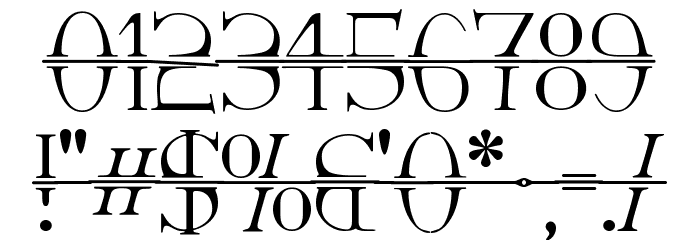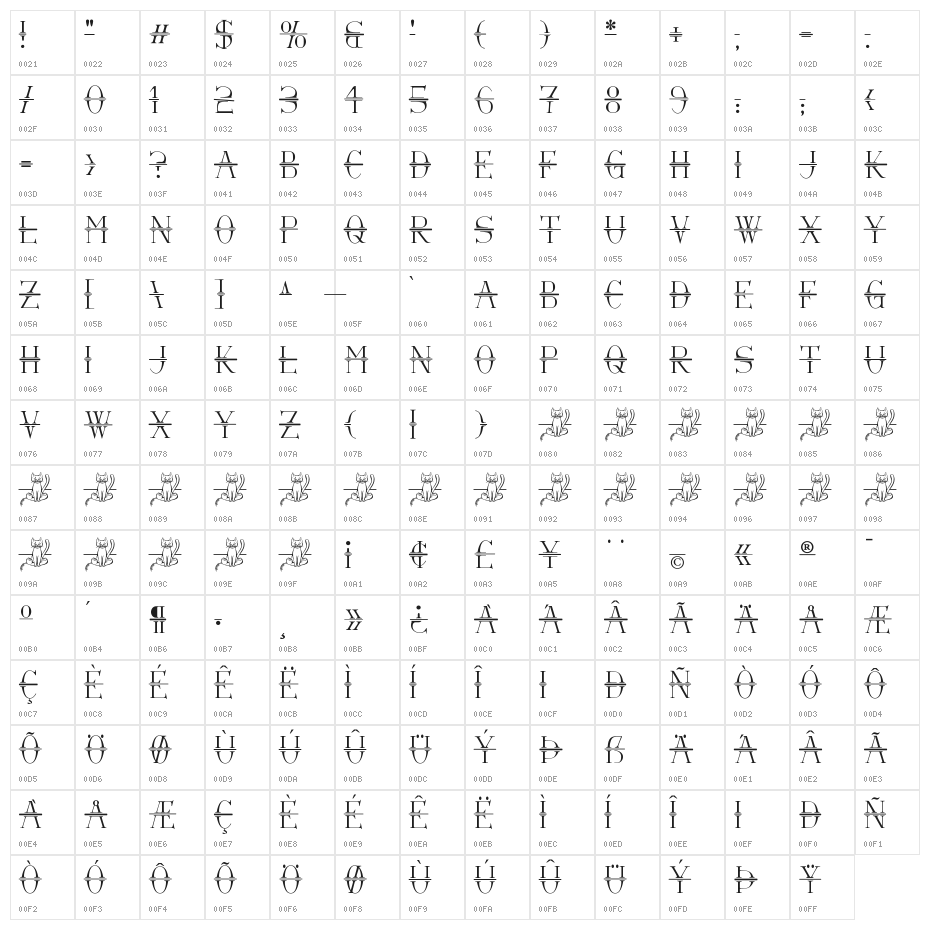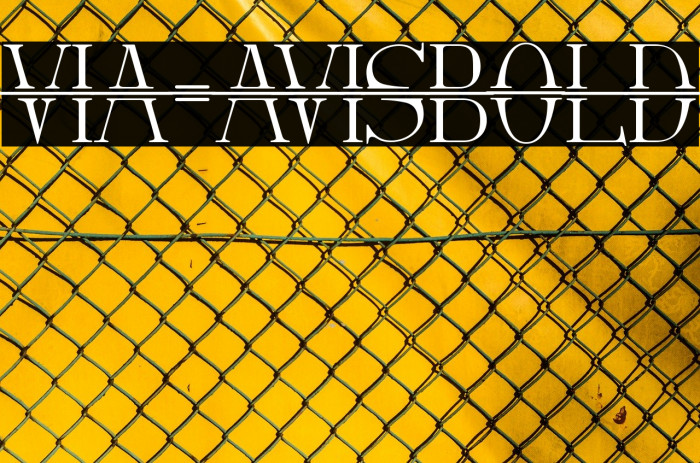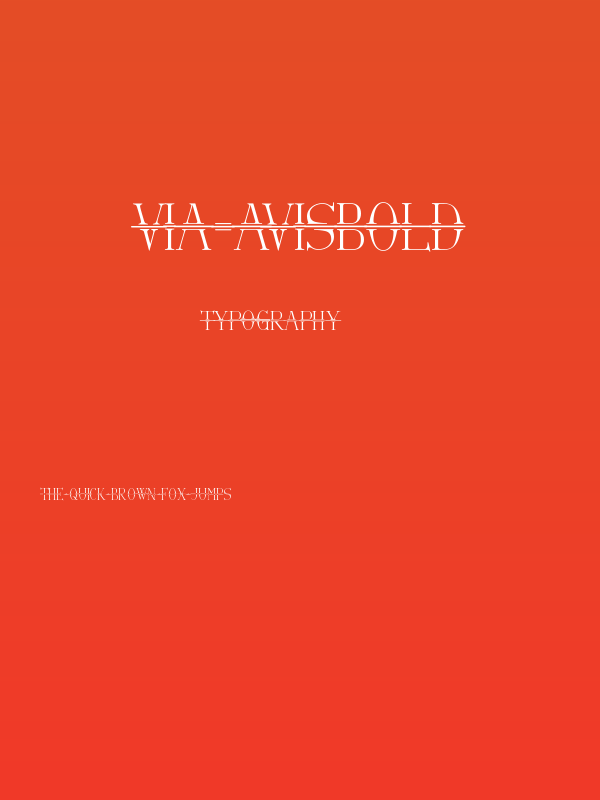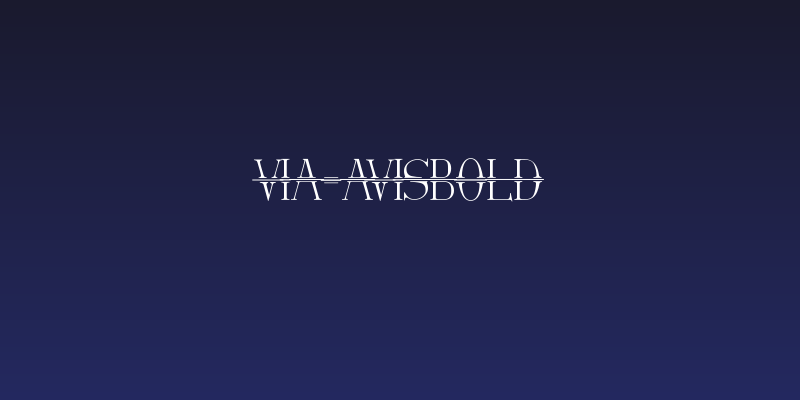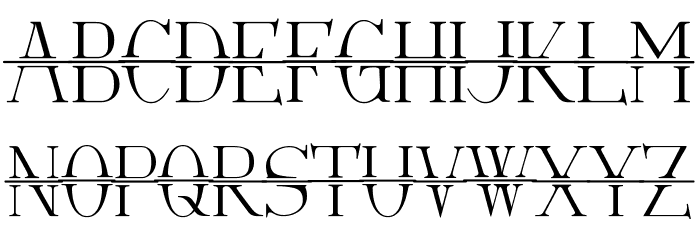
Via-AVisBold Font
Via-AVisBold Description
This font features a bold and striking design with a unique horizontal line cutting through the middle of each character. The uppercase and lowercase letters maintain a consistent style, characterized by sharp serifs and a modern twist. The numerals are equally bold, ensuring readability while maintaining the font's distinctive aesthetic. Special characters are designed with the same boldness and attention to detail, making this font suitable for a variety of creative applications. Its overall appearance is both classic and contemporary, offering versatility for different design needs.
| Proposed Projects | Ideal for branding, poster design, and editorial headlines where a bold statement is needed. |